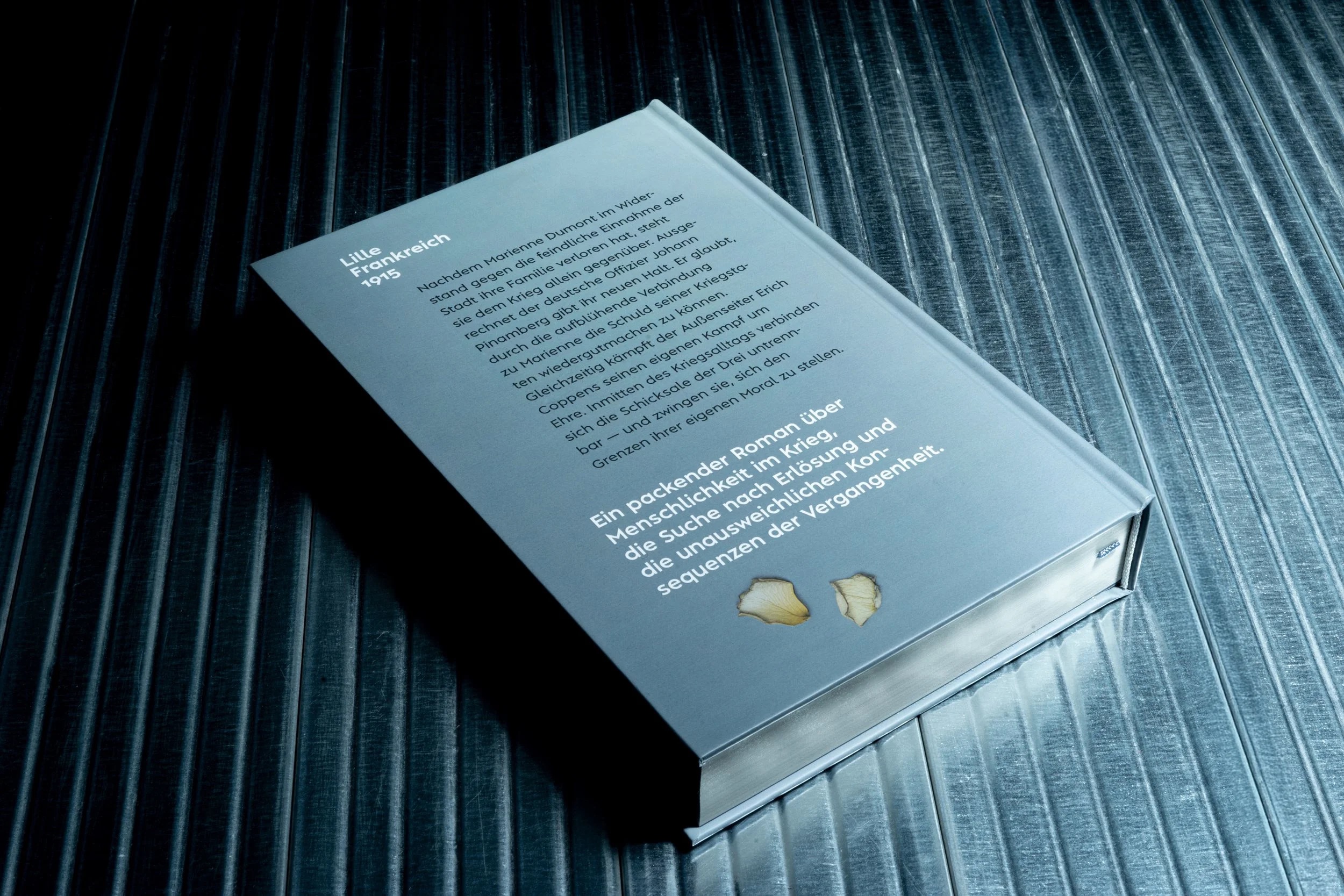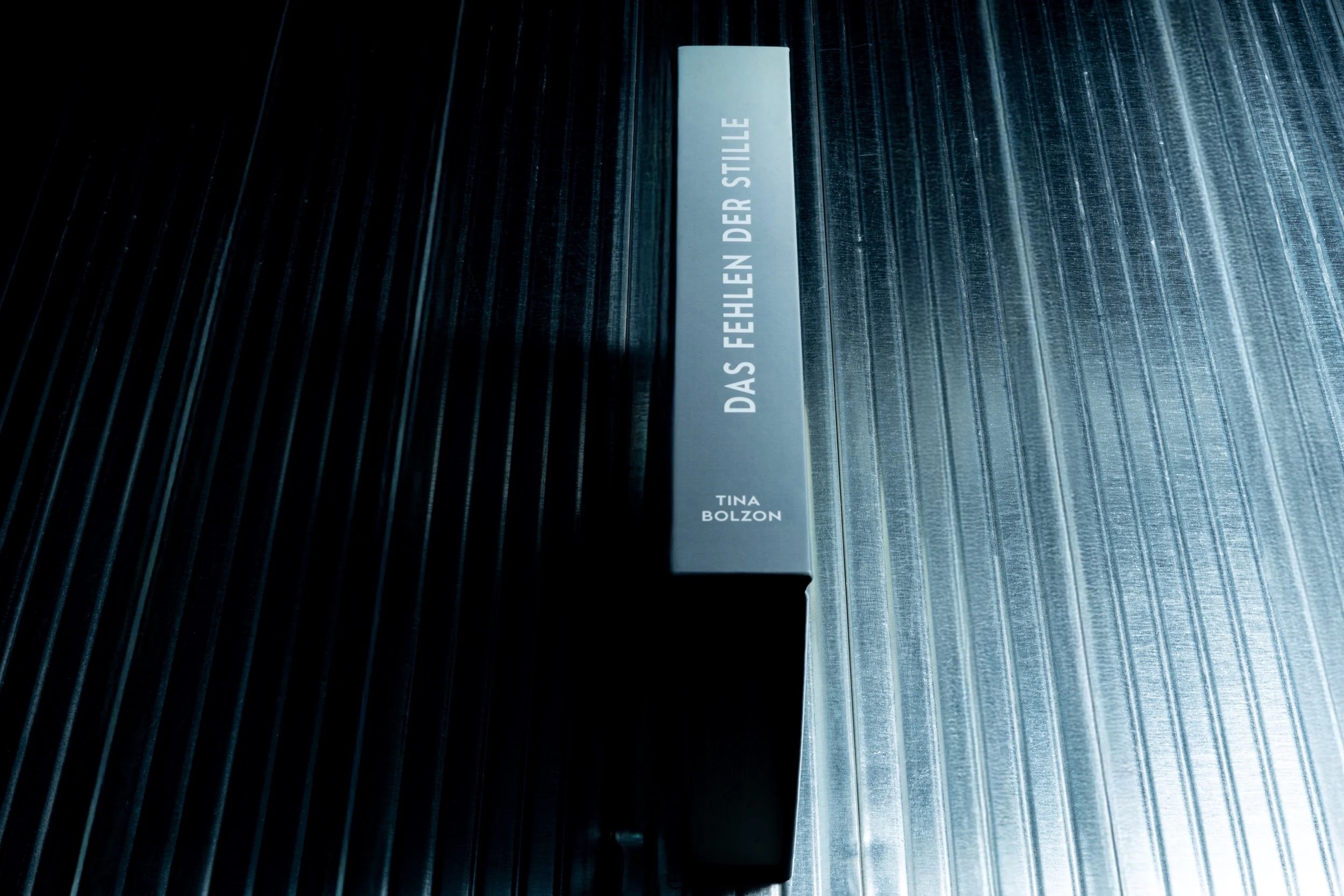
For the cover design of "Das Fehlen der Stille", the debut novel by Tina Bolzon, published in 2024, Albula Pro was selected.
The book, set in 1915 Lille, France, follows the intertwined fates of Marienne, a war widow, Johann, a guilt-ridden German officer, and Erich, an outsider seeking honor.
Albula Pro's elegant and clean design perfectly complements the novel's themes of war, morality, and redemption, adding sophistication to the cover while enhancing the emotional tone of the story.